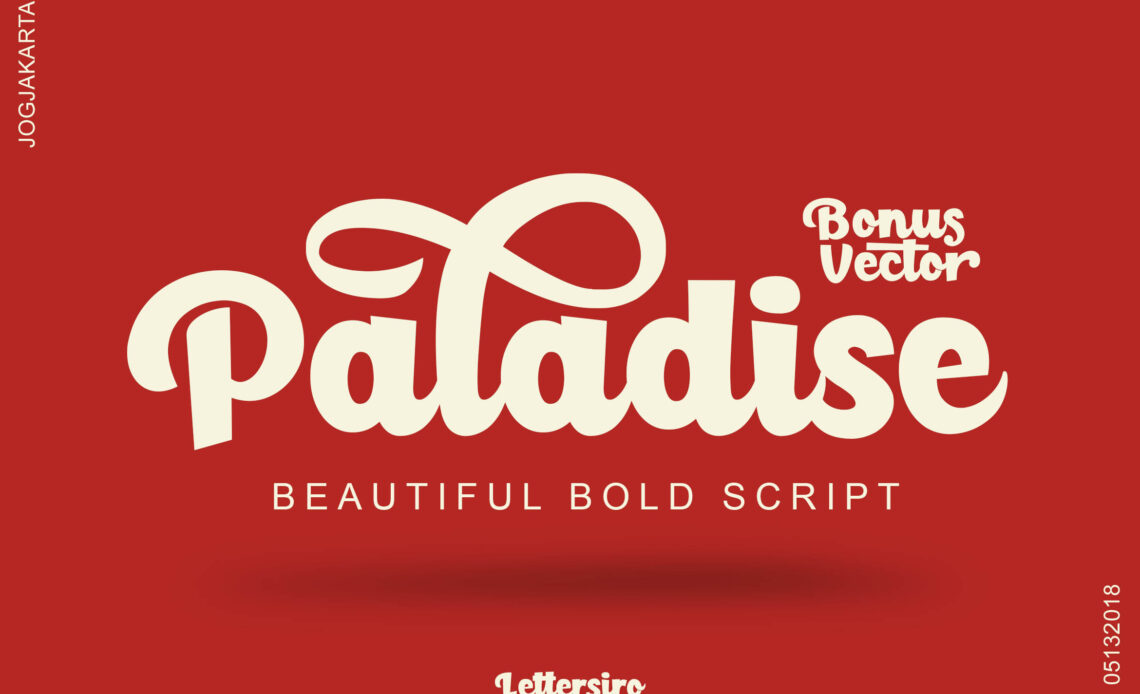
Unleash the whimsical charm of Paladise, a captivating script font that dances across your designs with playful elegance. Inspired by the carefree spirit, this exuberant font exudes a bouncy style, injecting an infectious energy into your creative endeavors. Whether you seek to craft eye-catching logos, vibrant social media posts, or enchanting invitations, Paladise stands as your steadfast companion, guiding you towards design brilliance.
With 26 bonus vectors at your fingertips, Paladise unlocks a world of creative possibilities. Let your imagination soar as you effortlessly weave intricate designs, mesmerizing illustrations, and captivating branding elements. From playful patterns to dynamic typography, the limits are boundless with Paladise as your creative partner.
Embrace the joyous spirit of Paladise and watch as your designs blossom with renewed life. Its graceful strokes and cheerful demeanor are sure to ignite a smile on the faces of your audience, leaving them utterly enchanted by the sheer brilliance of your creations.
Step into the realm of design magic and allow Paladise to be your muse. Its user-friendly nature makes it an ideal choice for both seasoned designers and those just beginning their creative journey. Experience the ease of use as you effortlessly manipulate letters, effortlessly adjust kerning, and explore the endless possibilities that await you.